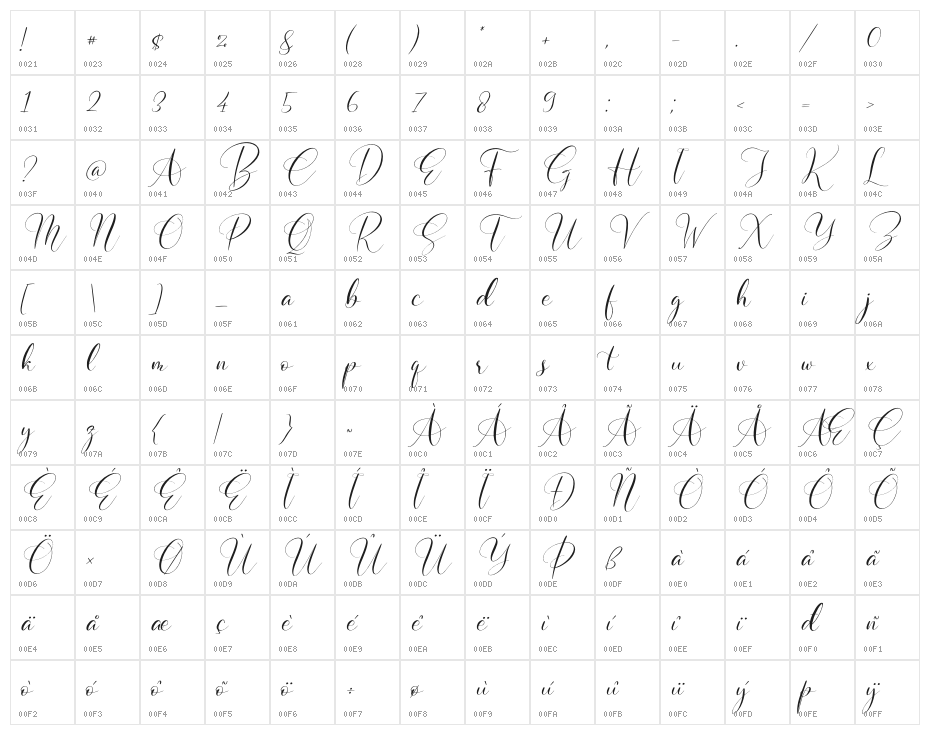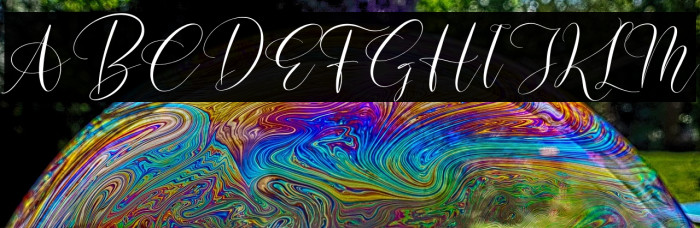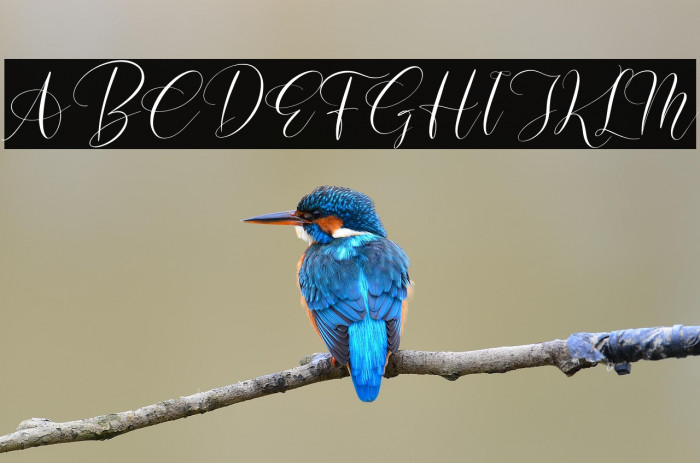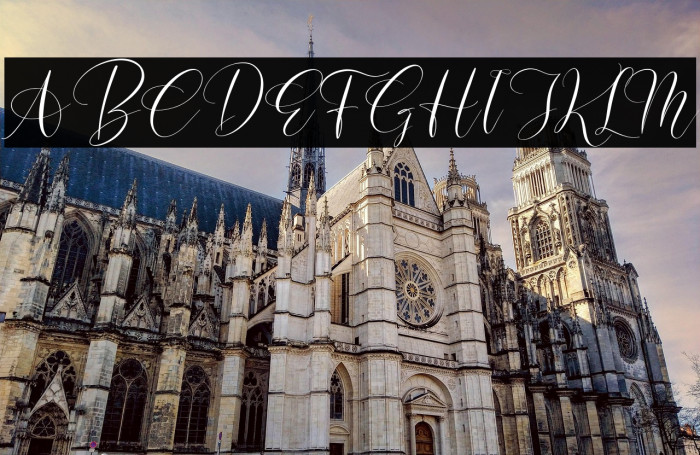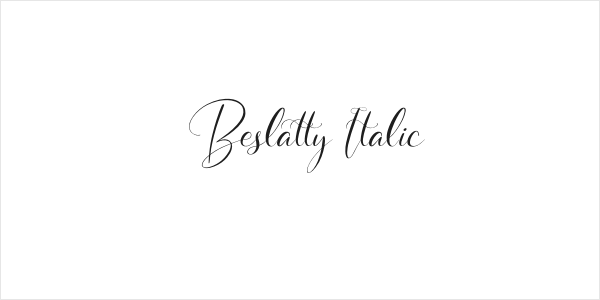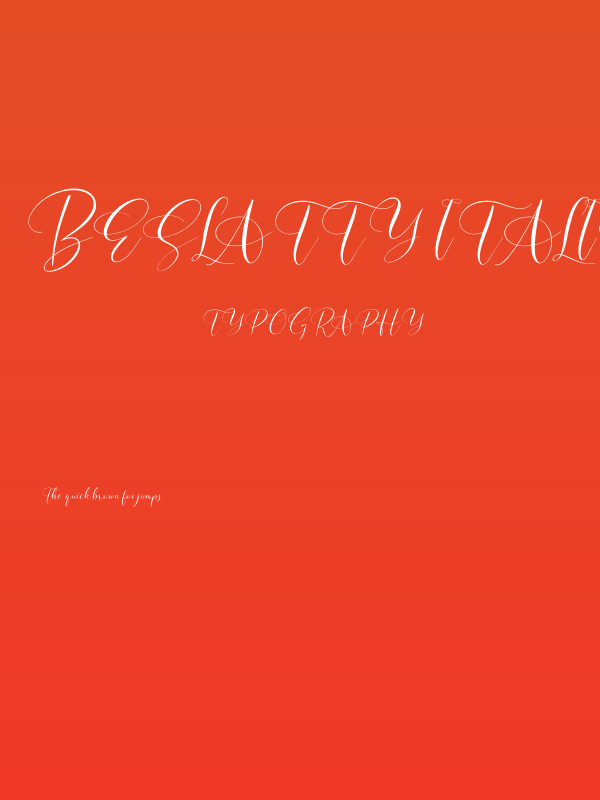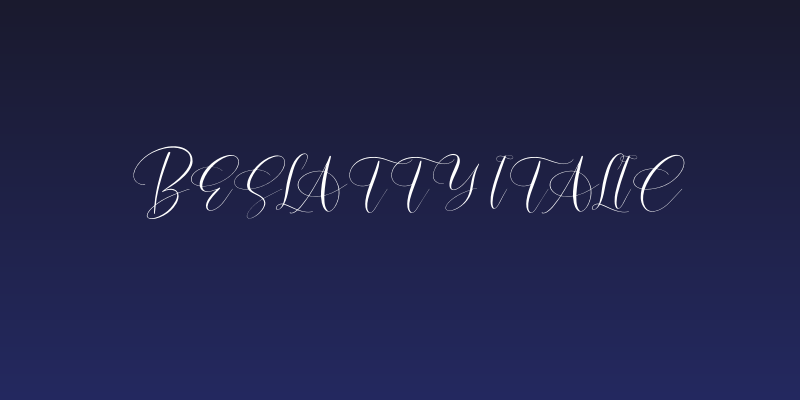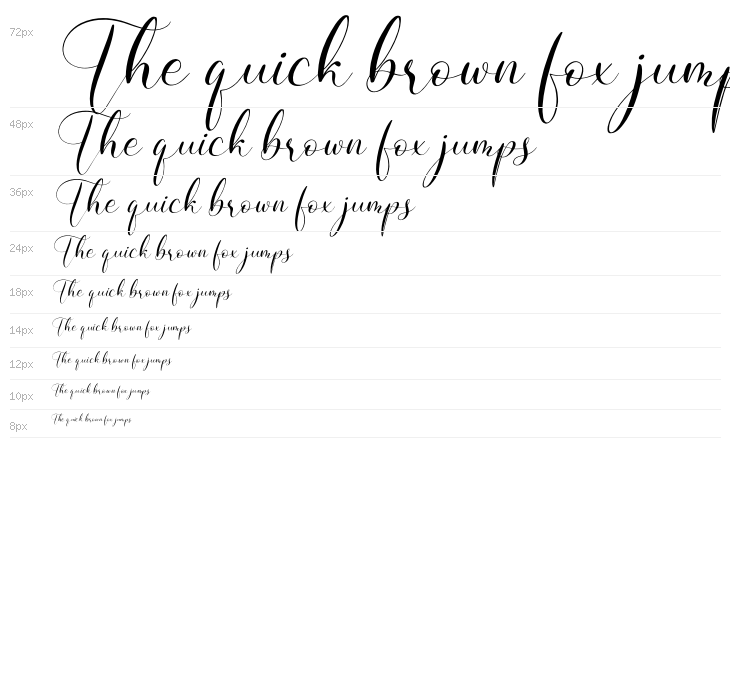
Beslatty Italic Font
Beslatty Italic Description
This elegant script font features a flowing, cursive style with a distinct italic slant. The characters are interconnected with graceful loops and swashes, giving it a sophisticated and artistic appearance. The uppercase letters are ornate, with extended flourishes that enhance their decorative quality. The lowercase letters maintain a consistent flow, making them ideal for creating a seamless and fluid text. The numerals are designed with the same attention to detail, ensuring they complement the overall aesthetic. Special characters are included, each crafted with unique embellishments that add to the font's charm. This font is perfect for projects that require a touch of elegance and creativity.
| Proposed Projects | Ideal for wedding invitations, greeting cards, branding, and elegant logo designs. |